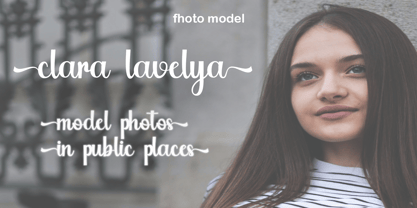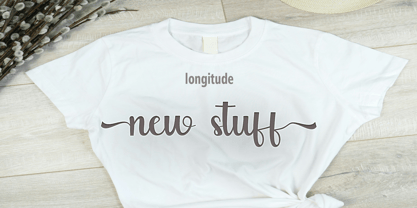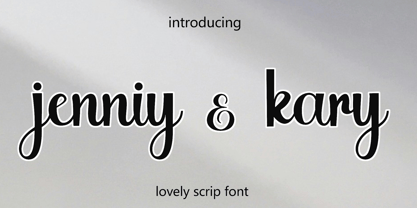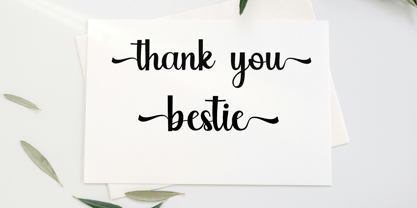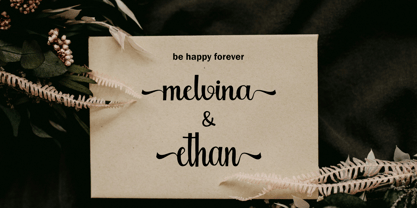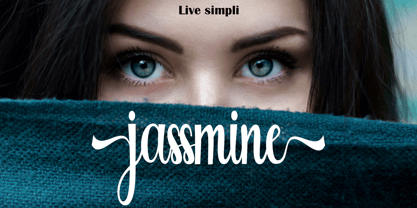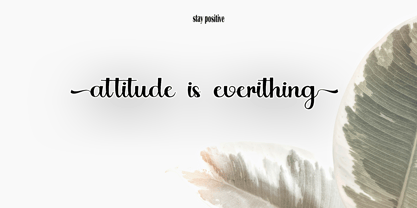
Jenniy & Cary
by Mars Creative
The Jenniy & Cary Font Family was designed by Al Muzammil and published by Mars Creative. Jenniy & Cary contains 1 styles. More about this family
Jenniy & Kary is a lovely modern script font with smooth curves and playful letterforms. Designed to feel friendly, warm, and elegant, this typeface brings a charming handwritten touch while staying clean and highly readable. Its bold strokes and soft terminals make it perfect for romantic designs, branding, logos, wedding invitations, social media posts, quotes, and creative projects.